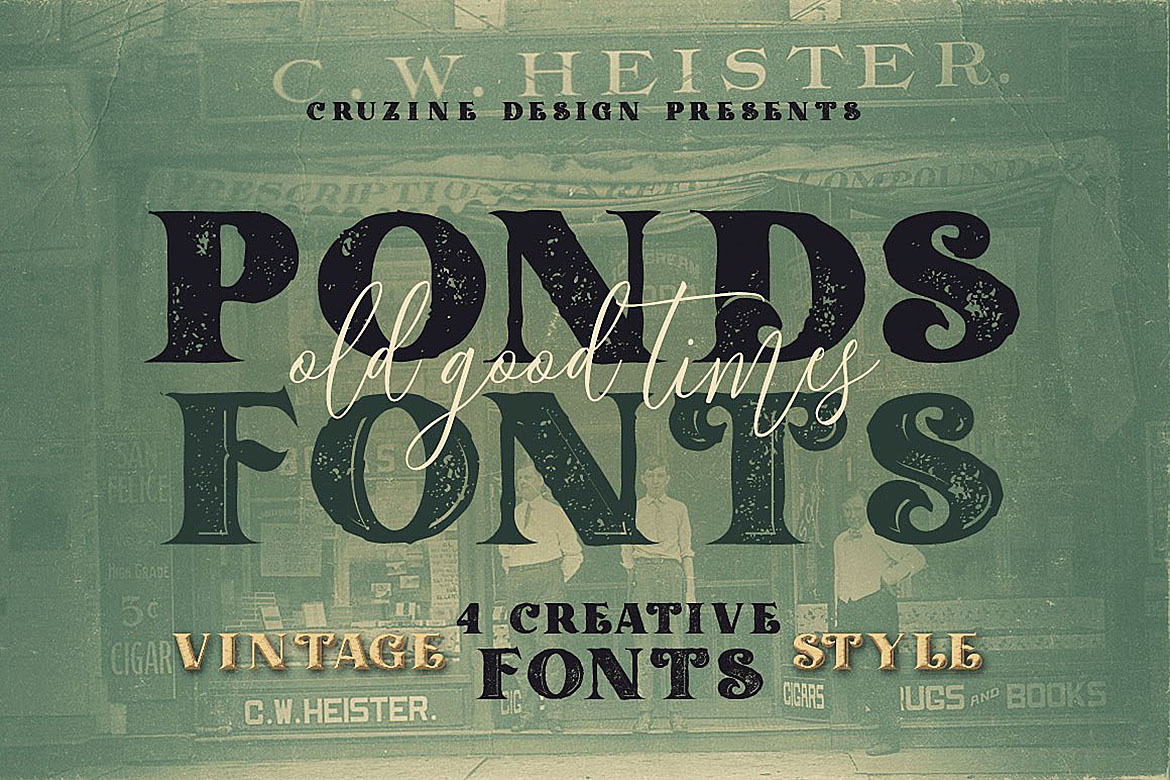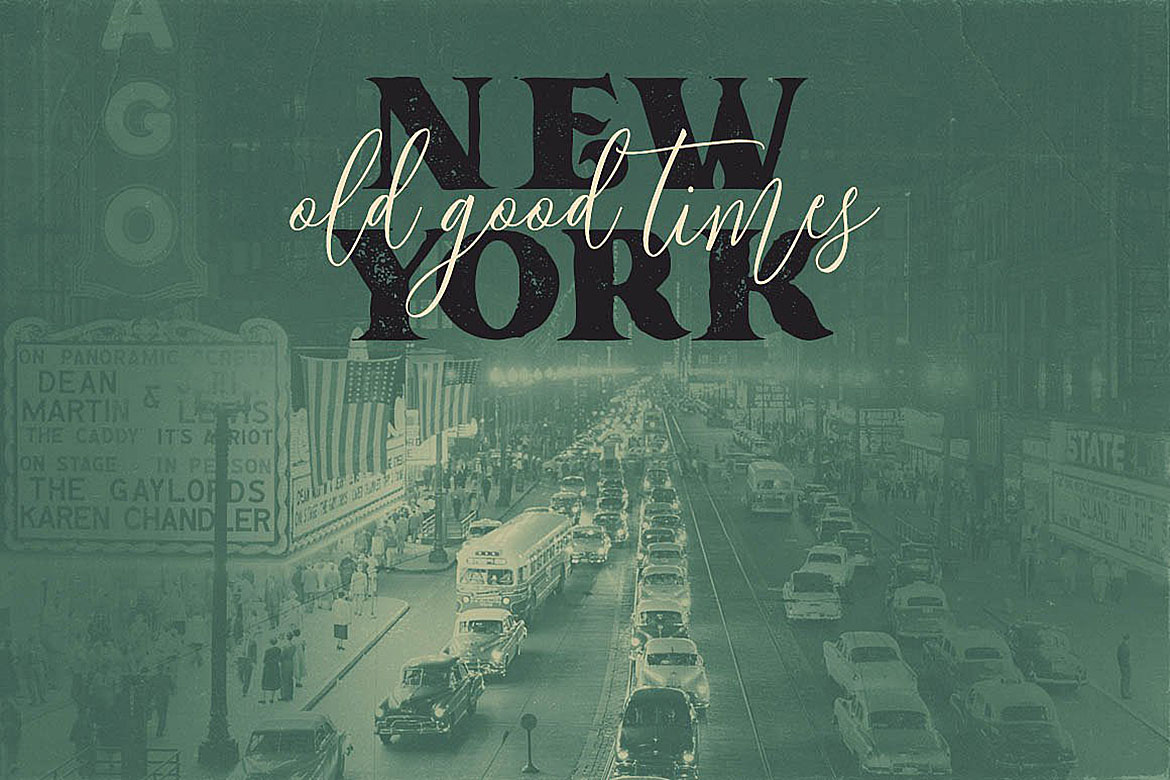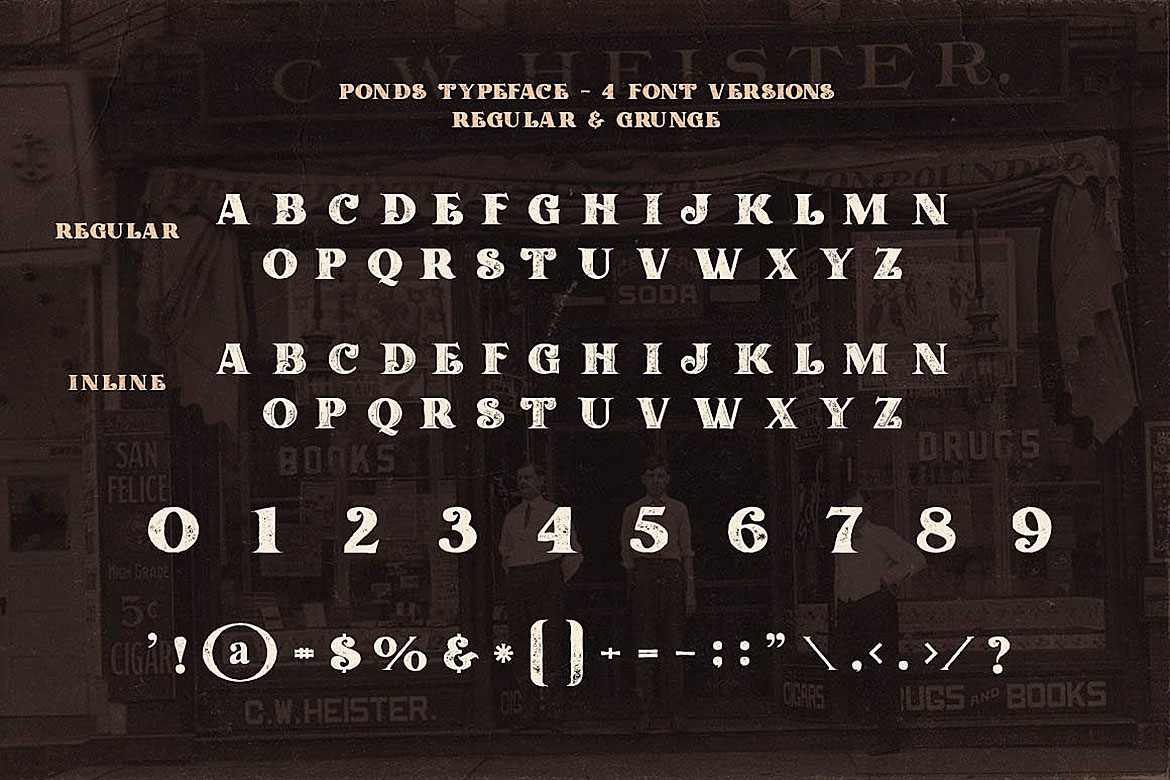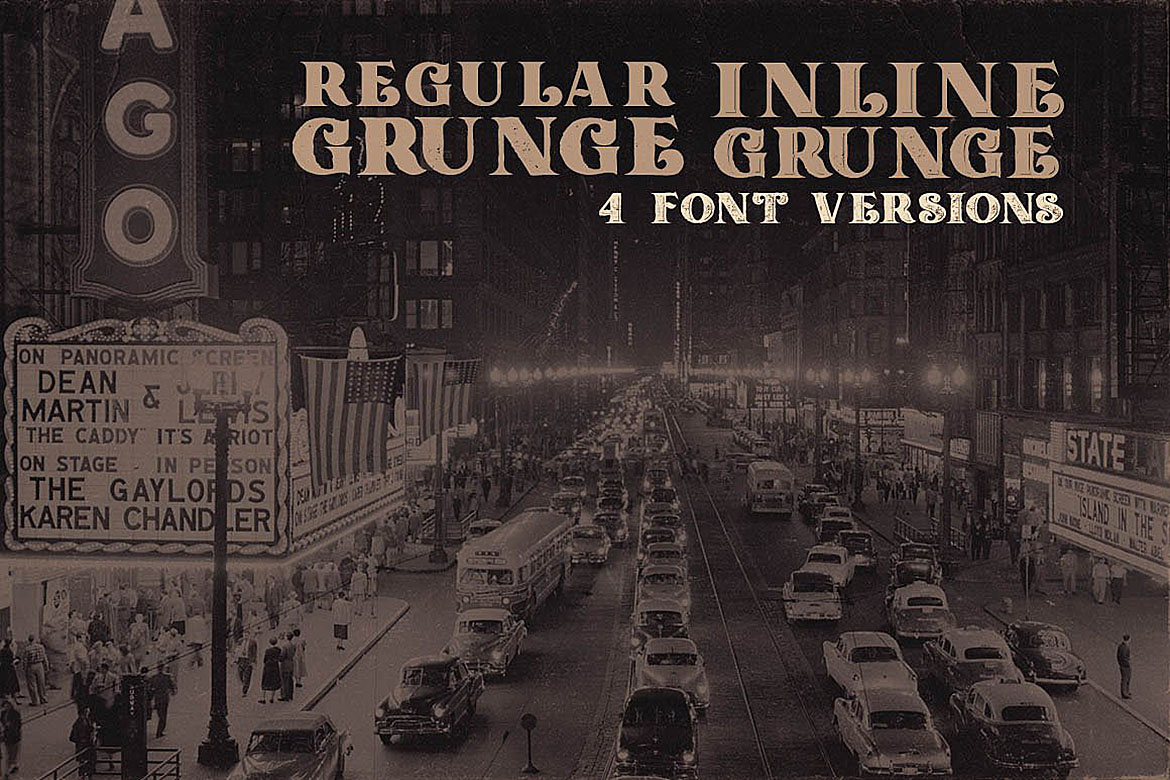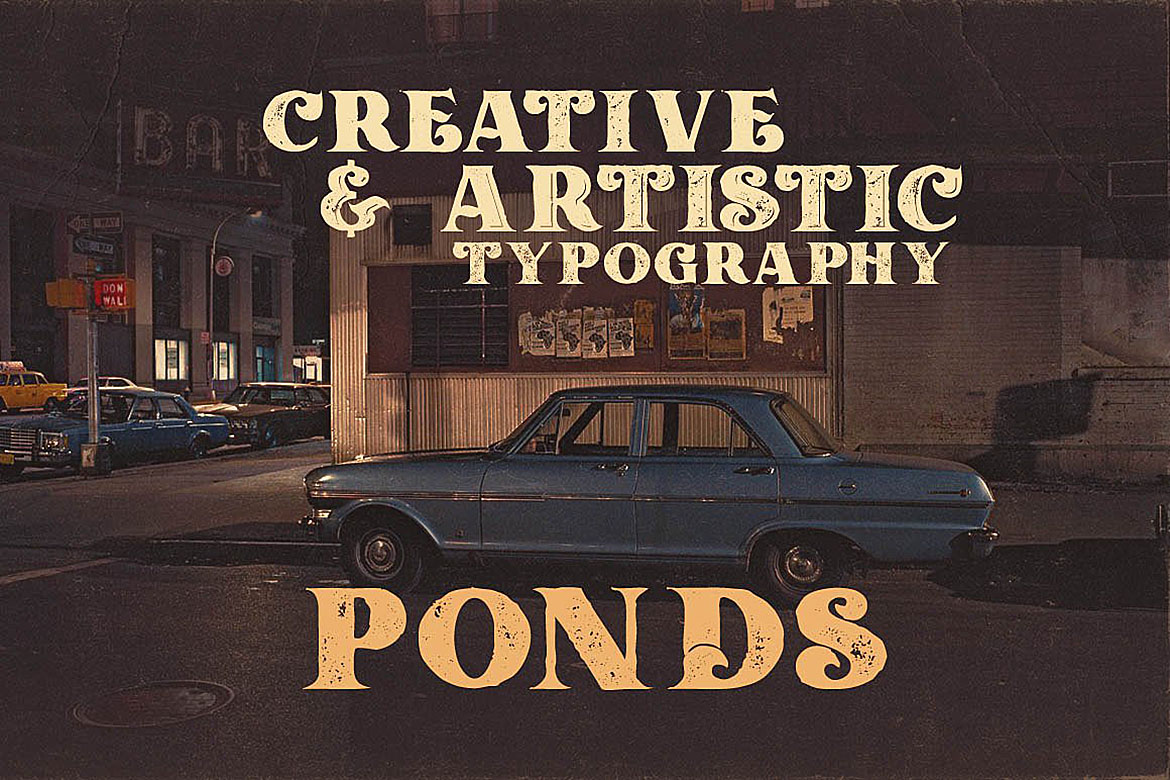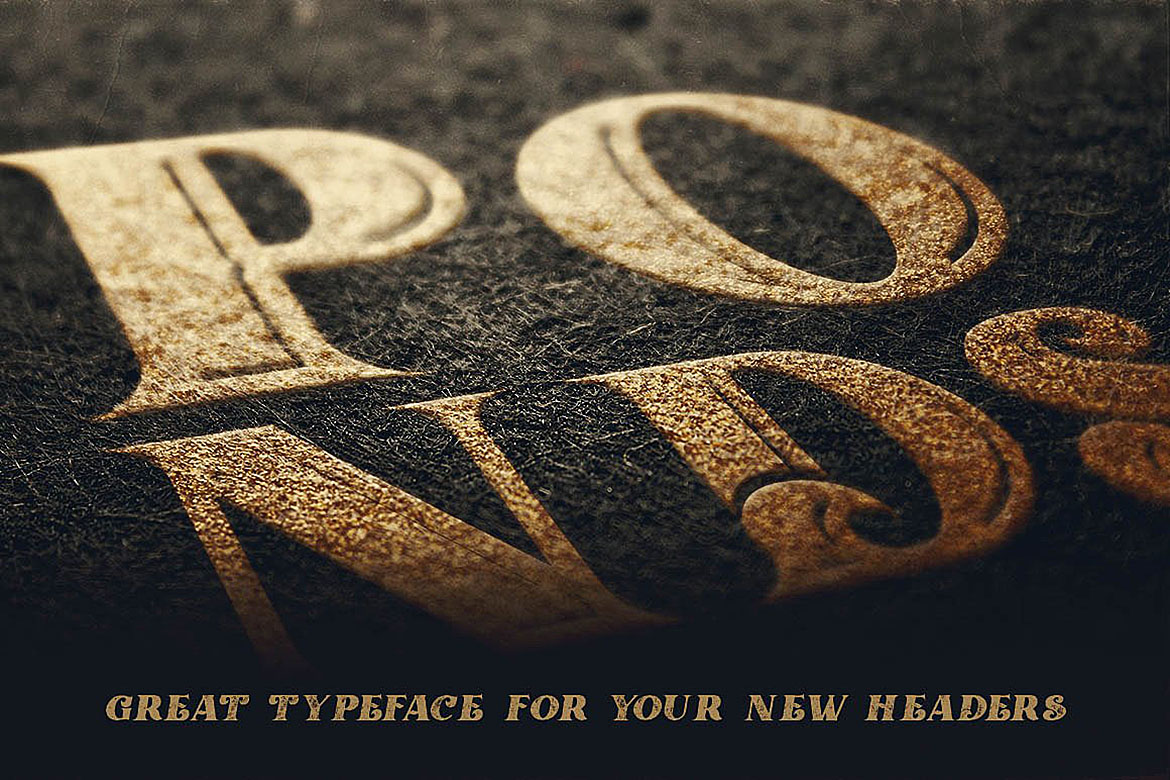
Introduction to Ponds Font
Have you ever been working on a design project and suddenly, the perfect font pops into your mind? It’s like finding that one missing piece of a puzzle. For me, that moment came when I discovered the Ponds Font. This vintage display font has been a game-changer in my design process, and I’m excited to share its awesomeness with you.
The Ponds Font is a high-quality design resource that offers a range of style options, making it perfect for both vintage and modern projects. Its versatility is what makes it so valuable for designers like us. Whether you’re working on a creative project that requires a transparent background or a clean and modern design, the Ponds Font is an excellent choice. And the best part? It’s available for a free download, making it an accessible resource for designers of all levels.
Ponds Font
- High-quality font designed for creative projects, ideal for use on transparent backgrounds.
- Features a unique, hand-drawn style with intricate details, perfect for adding a touch of elegance to any design.
- Comes in a single font size, but can be easily resized to fit the needs of your creative project.
- Designed at a high resolution (300 DPI), ensuring crisp and clear text output even at large sizes.
- Perfect for use in a variety of design contexts, including logos, branding, and typography-based creative projects.
Honest Review: Ponds Font
As a designer, I’m always on the lookout for high-quality design resources to enhance my creative projects. Recently, I stumbled upon Ponds Font, and I must say it’s a hidden gem. Here’s my honest review.
- Unique and elegant design style
- Perfect for creating a natural and serene atmosphere in your designs
- Works well with transparent backgrounds, giving it a beautiful and subtle look
- May not be suitable for bold and playful designs
- Limited character set, which can be a limitation for some projects
Overall, I’m impressed with Ponds Font. Its high quality and unique design style make it a great addition to any designer’s toolkit. While it may not be perfect for every project, it’s definitely worth checking out for your next creative endeavor. And the best part? It’s free to download!
Ponds Font is suitable for a variety of design projects, including:
- Social media graphics and advertisements
Ponds Font has a transparent background, making it ideal for use on images or backgrounds with complex designs. This feature allows designers to create seamless and visually appealing designs for their creative projects.
Ponds Font is a high-quality design resource suitable for a wide range of creative projects, including logos, typography, and branding. It’s recommended to use the font in sizes ranging from 12pt to 48pt for optimal readability and visual impact.